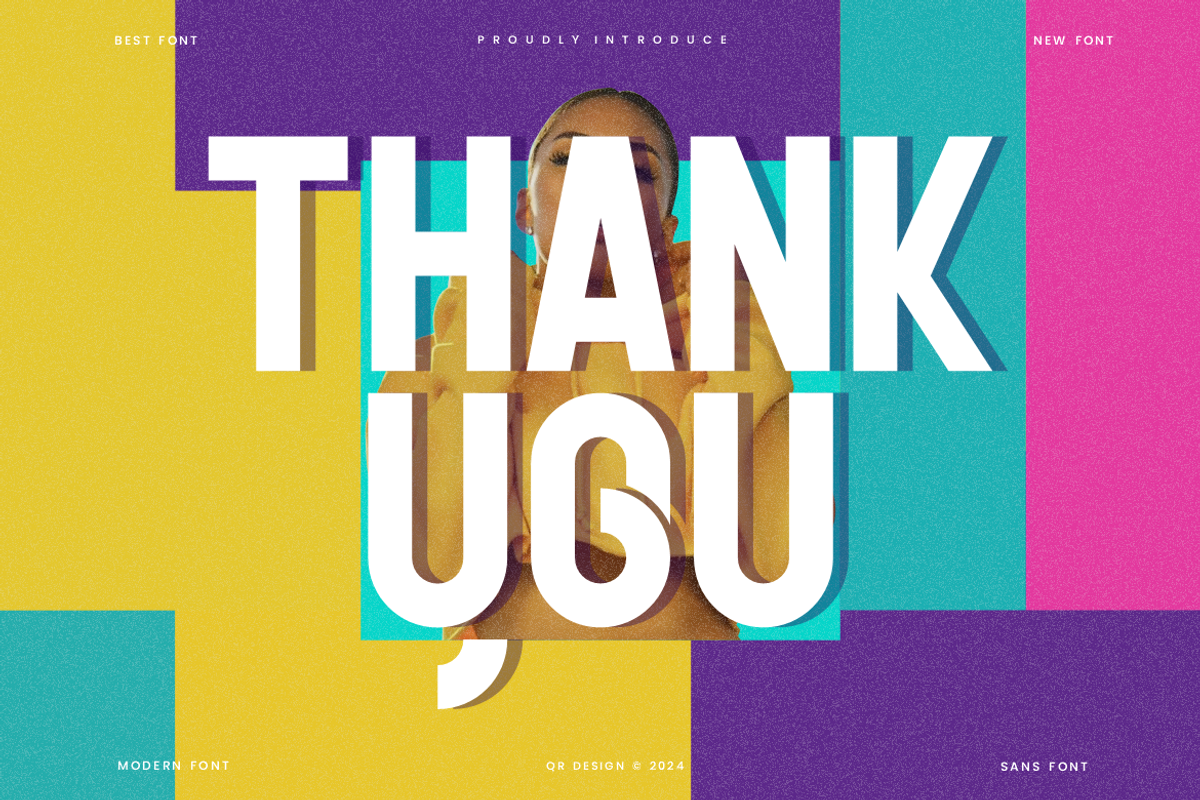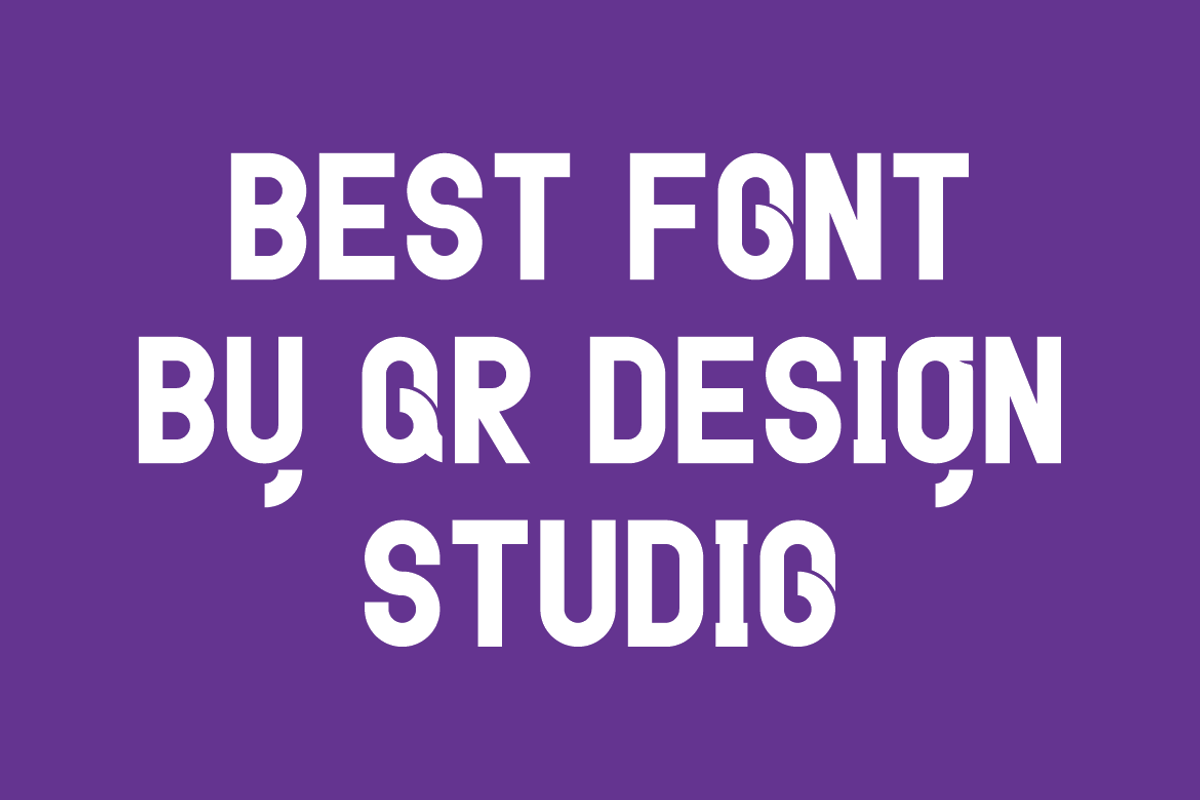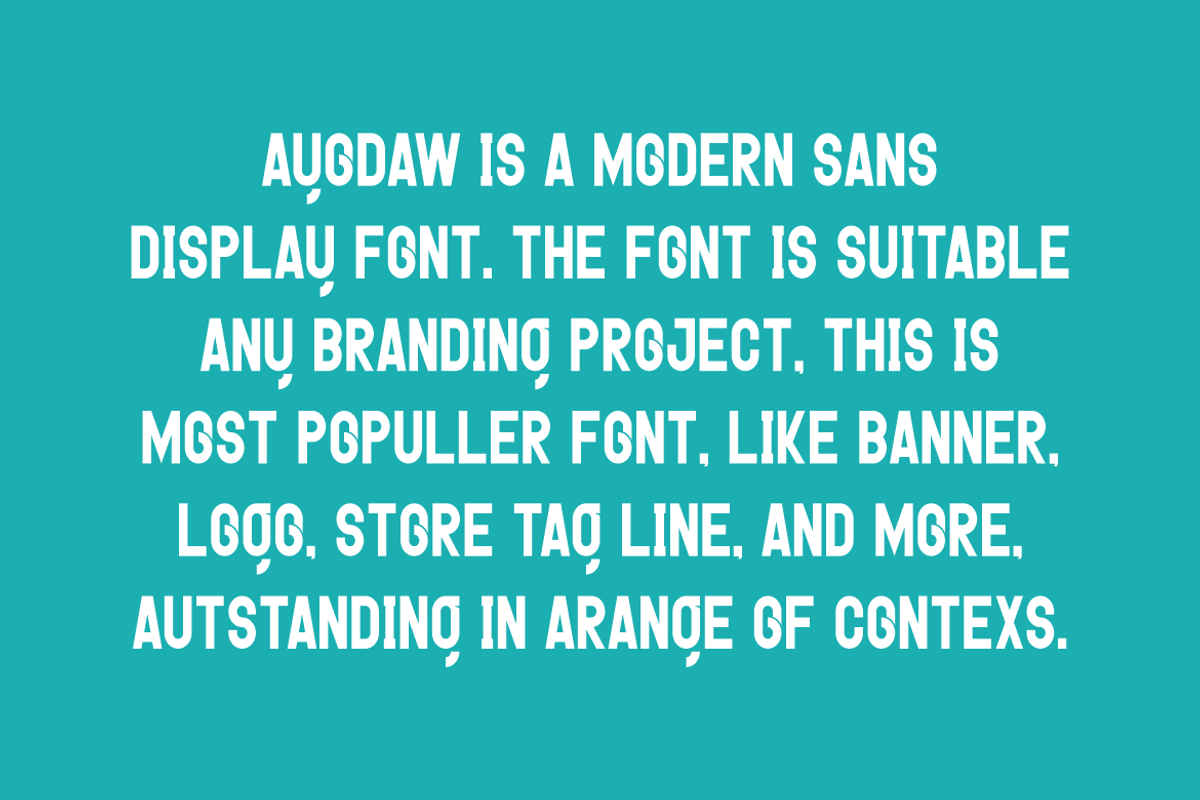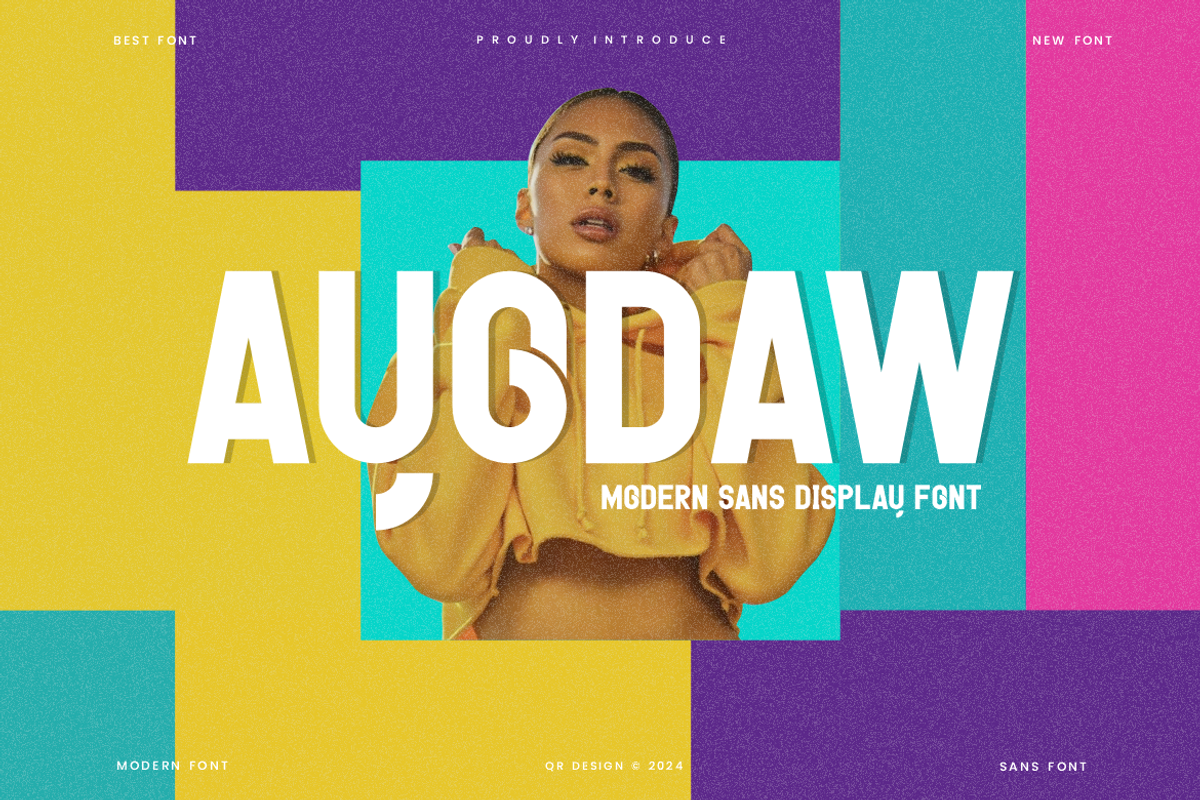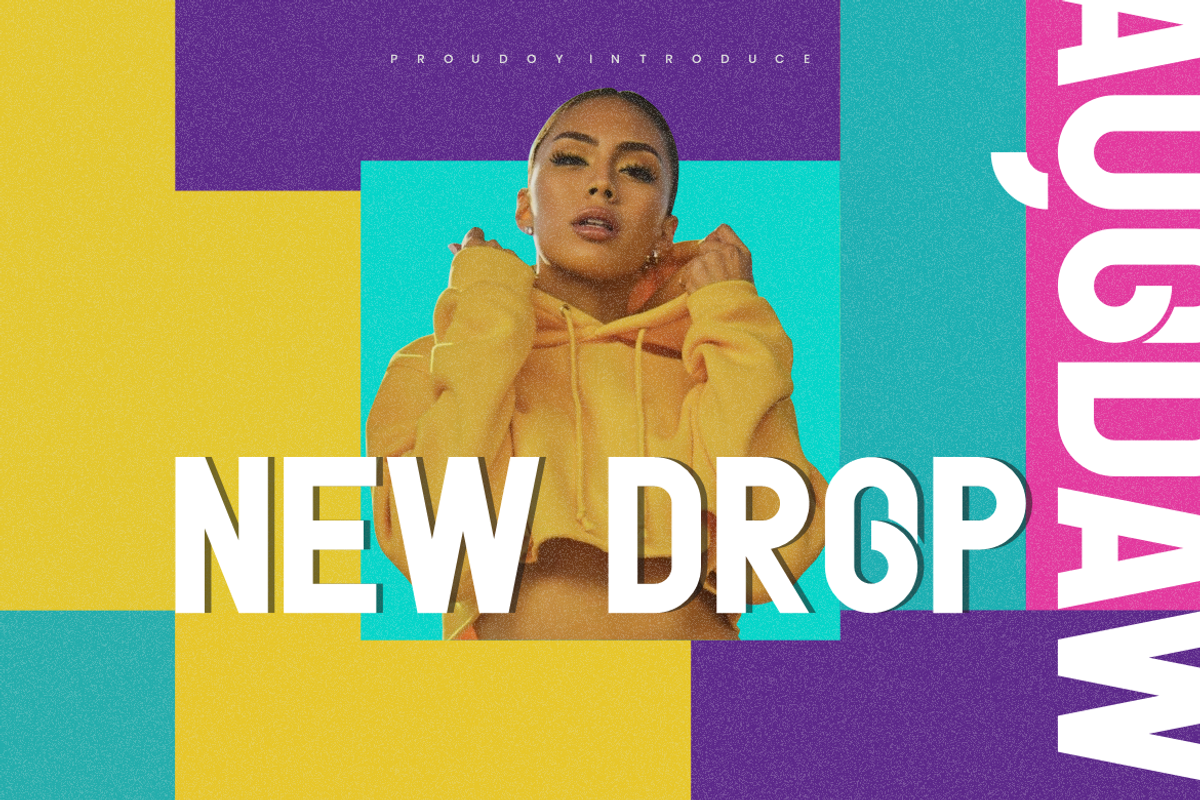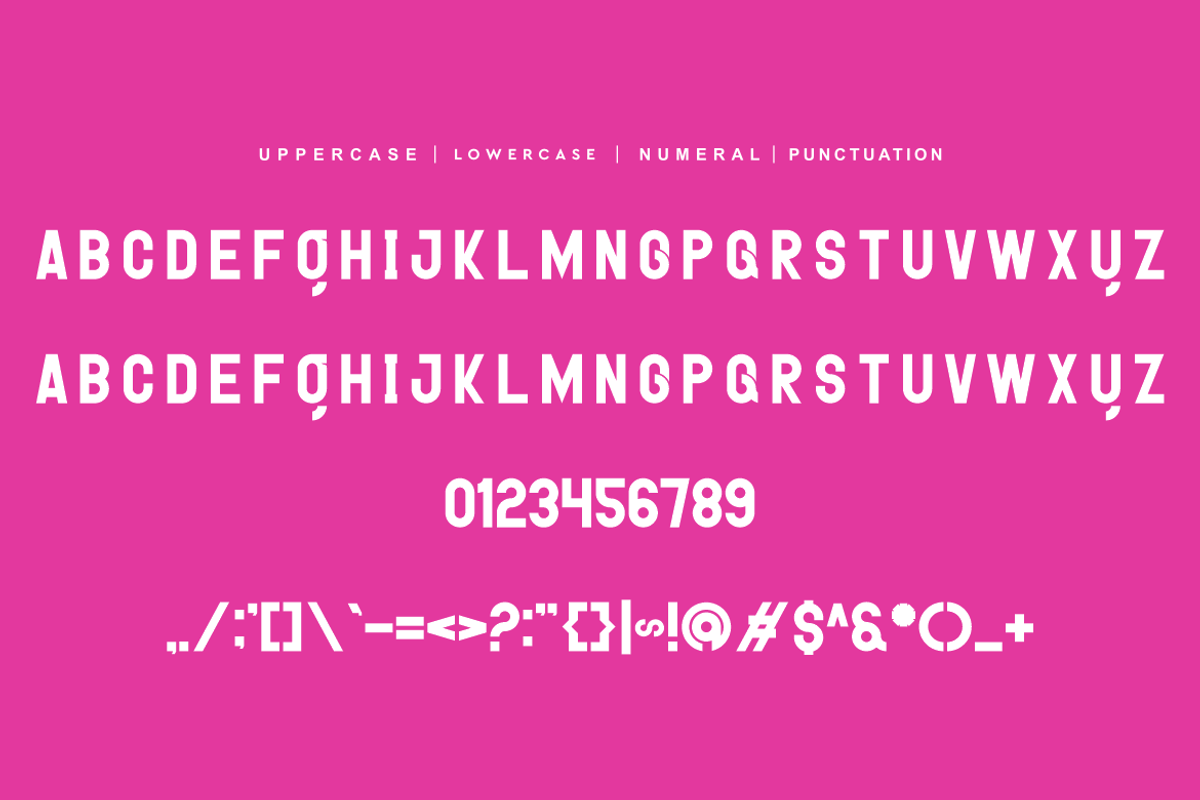
Ayodaw - Modern Sans Font
Ayodaw - Modern Sans Font is a bold and authentic display font. The font is suitable for any branding project like poster, logo, sport, and many more. Outstanding in a wide range of contexts.